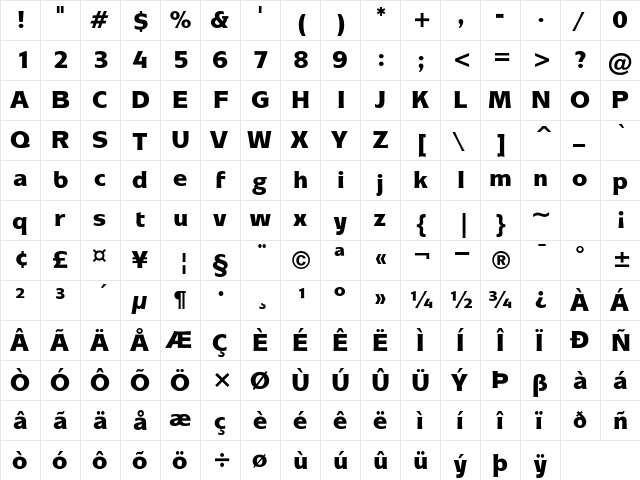
SkiptonBlackSSK Regular
Design Context for SkiptonBlackSSK Typeface
SkiptonBlackSSK offers clean, dependable letterforms without strong stylistic allegiance, making it a practical choice for designers who need flexibility.